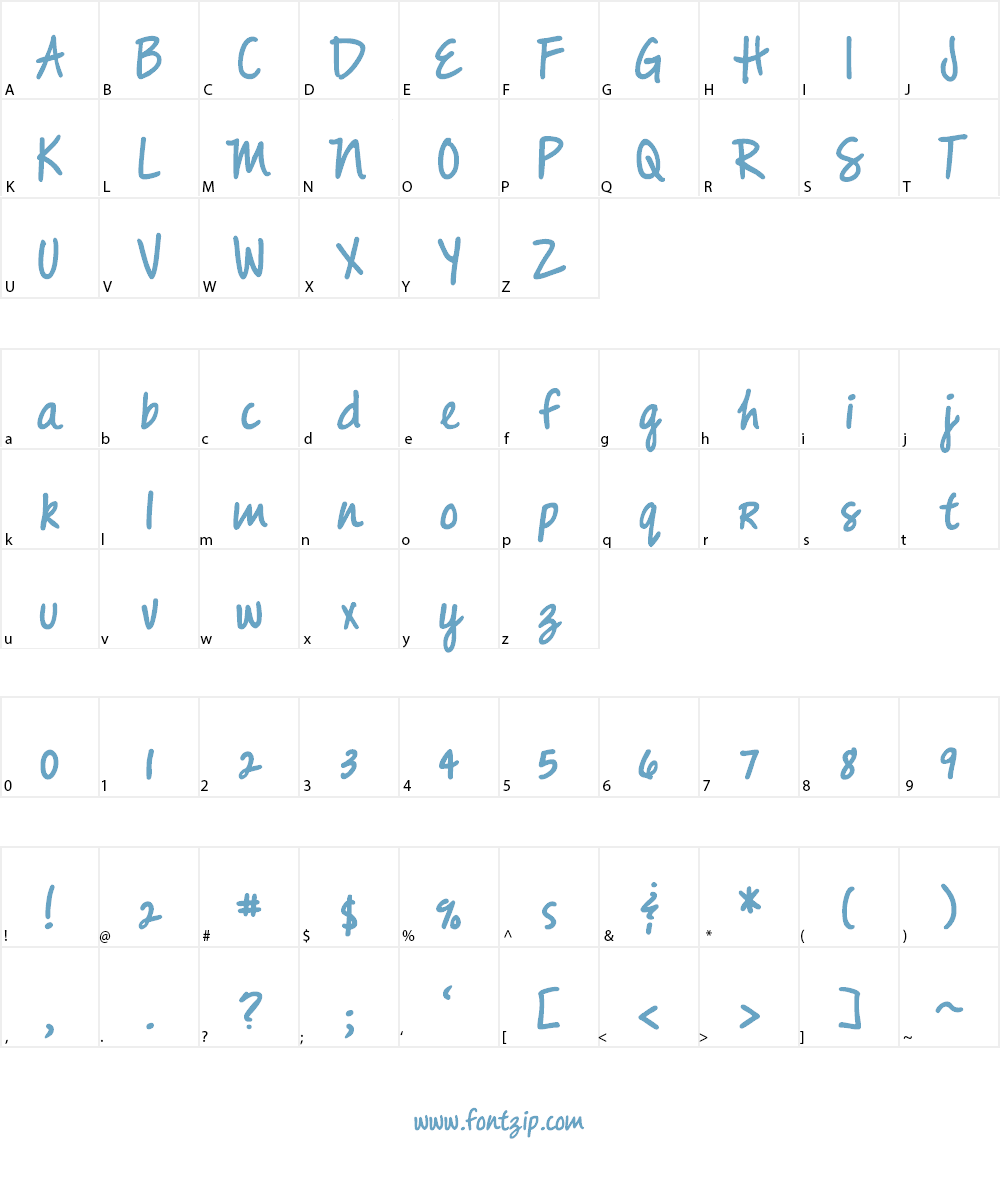
Messy Amanda Goes Bold - the realistic handwriting font that LOVES going bold.
This font contains European language characters and an alternative s and r for teachers.